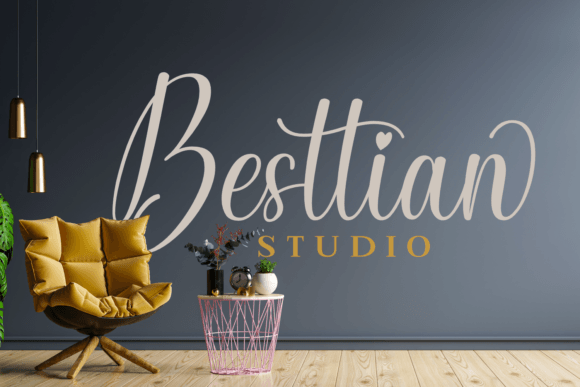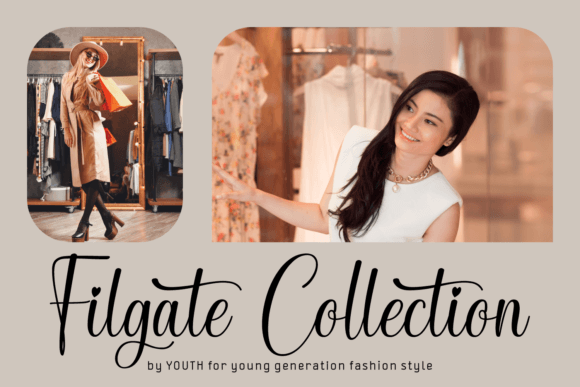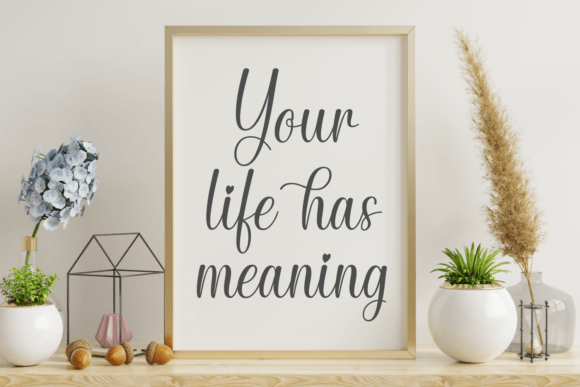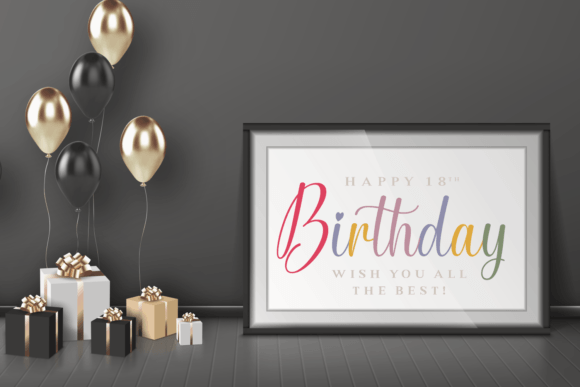
Introduction to Septia Font
Septia is a thin and elegant script font.
It is an excellent asset to your design library as it has the potential to elevate any creation Use it to make beautiful logos, invitations, wedding designs, greeting cards, and many more.
Key Features of Septia Font